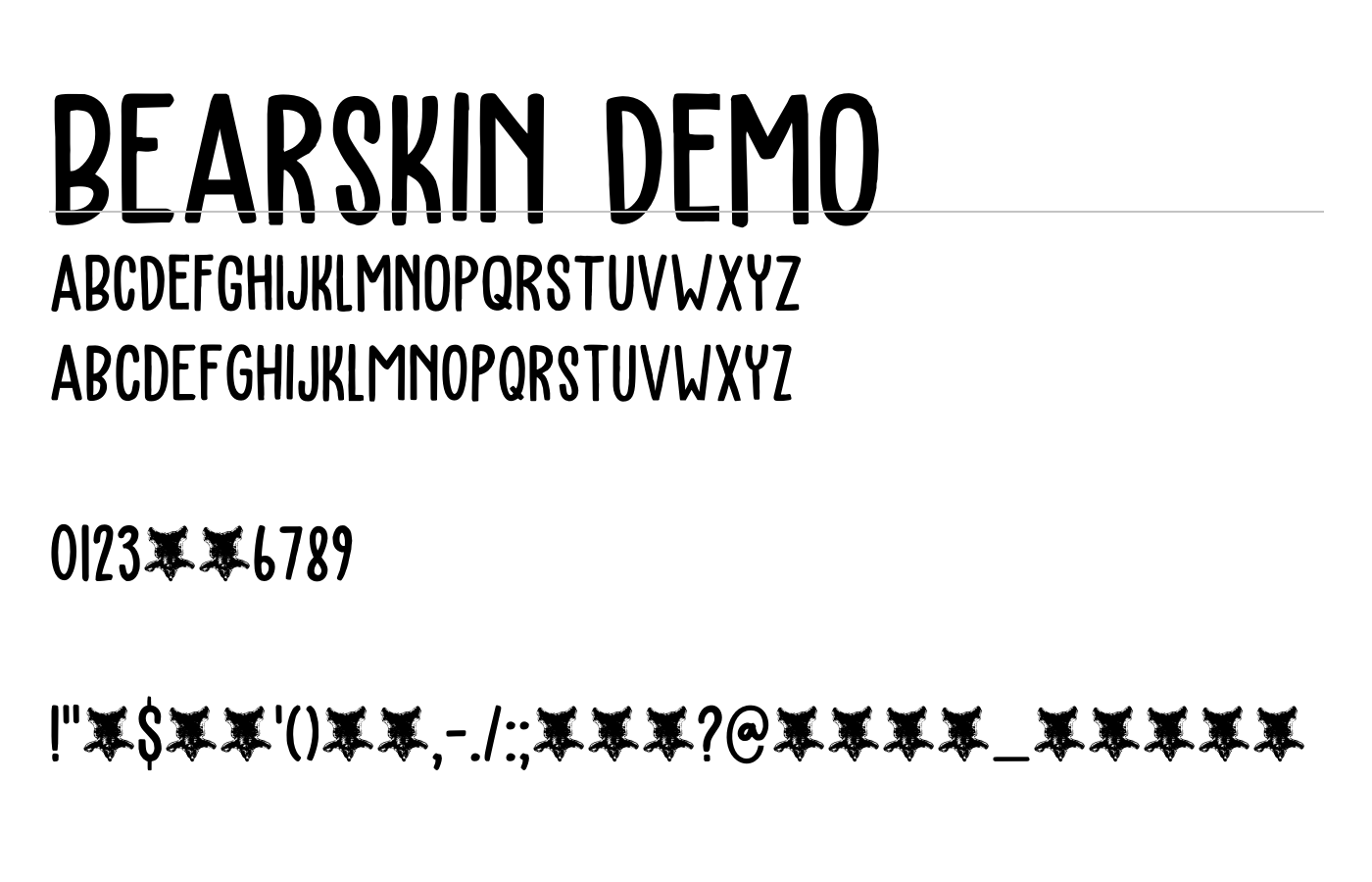
Bearskin DEMO is a playful, condensed sans serif font with a hand-drawn, casual feel highlighted by its slightly irregular strokes and tall, narrow letterforms. Its quirky style works wonderfully for fun, informal branding, children’s projects, and creative headlines where a unique, friendly touch is desired. This font’s charm makes it best suited for eye-catching titles and designs that want to communicate warmth and approachability.
Bearskin DEMO Font
About Bearskin DEMO Font